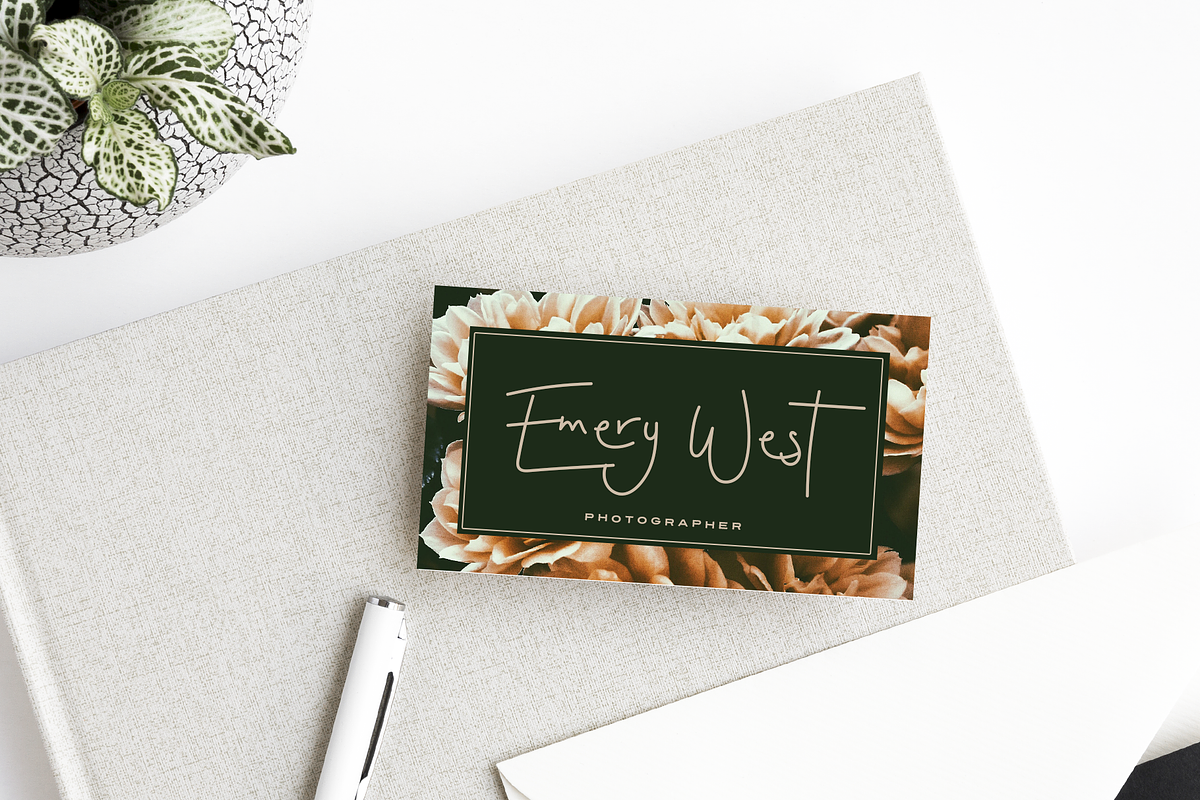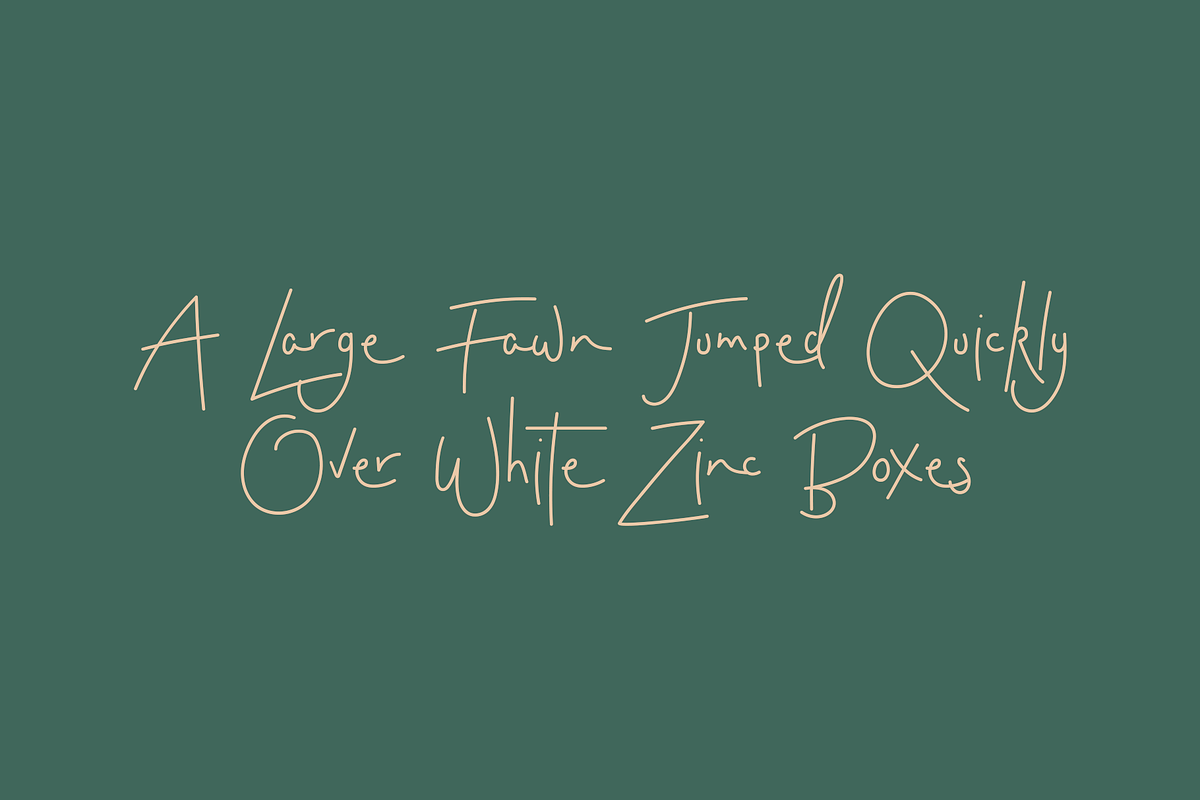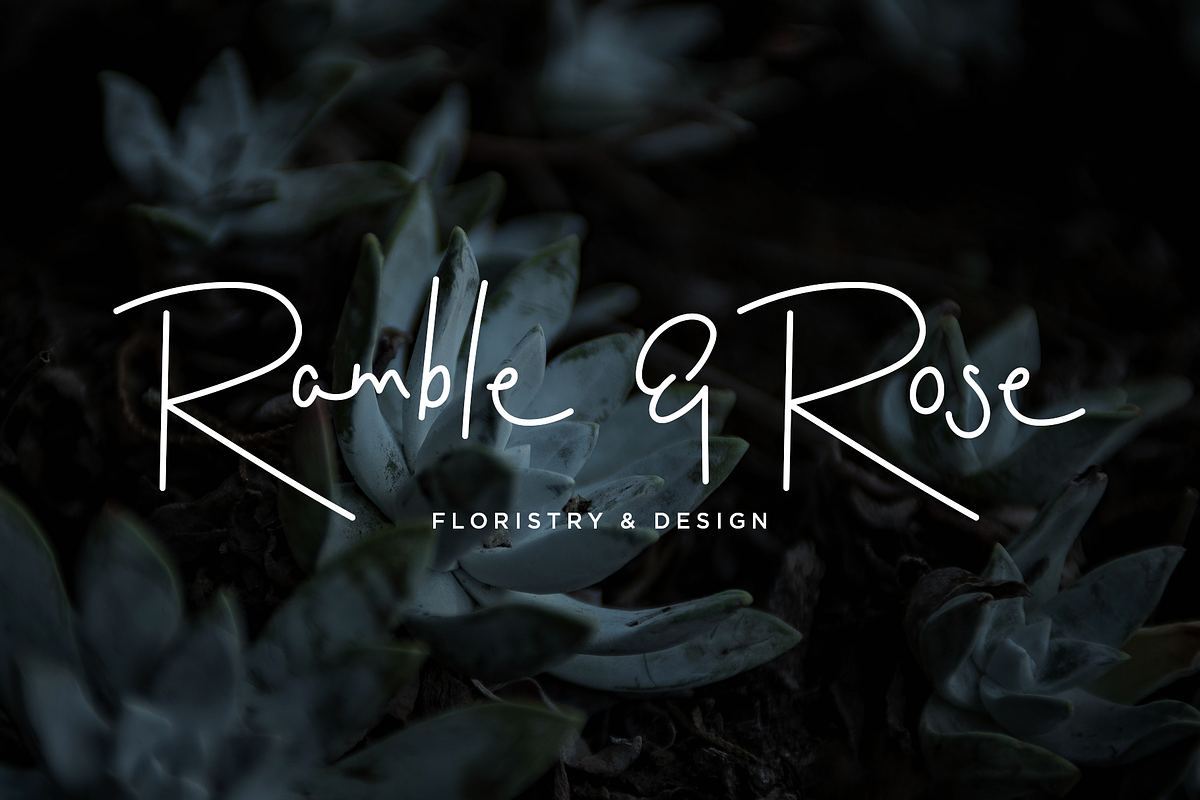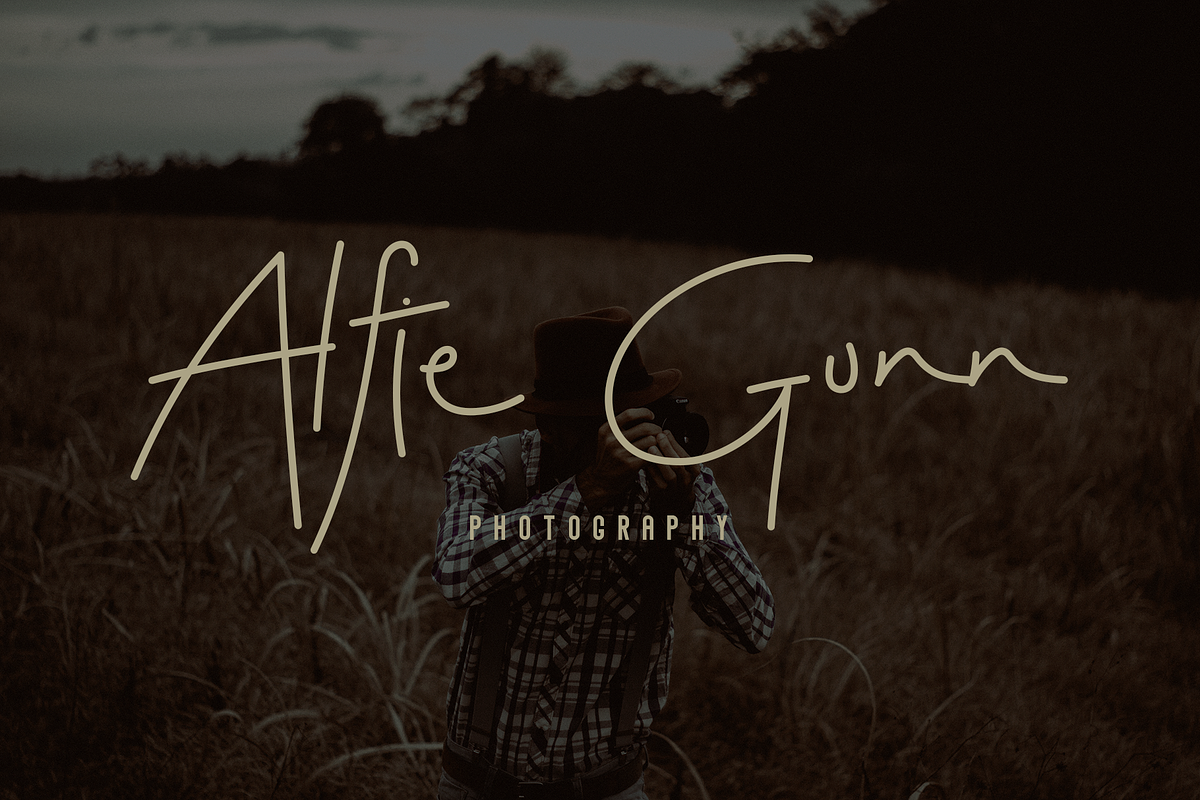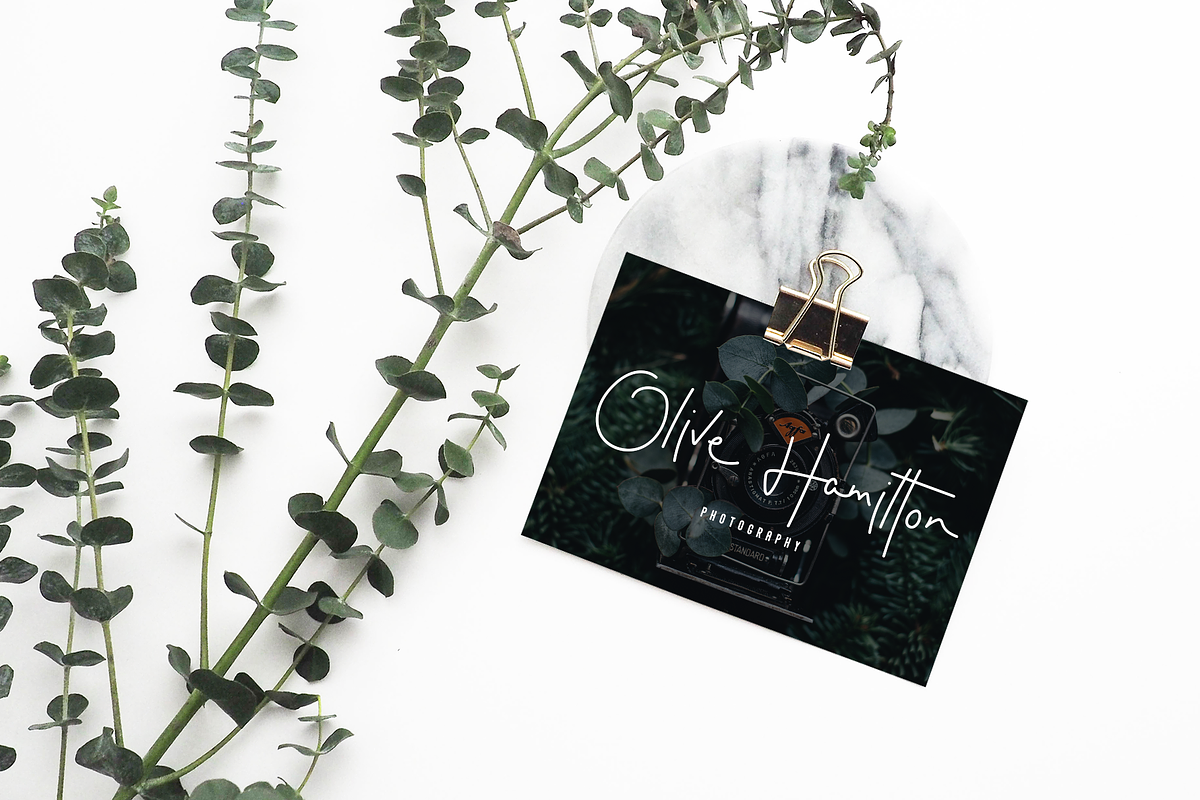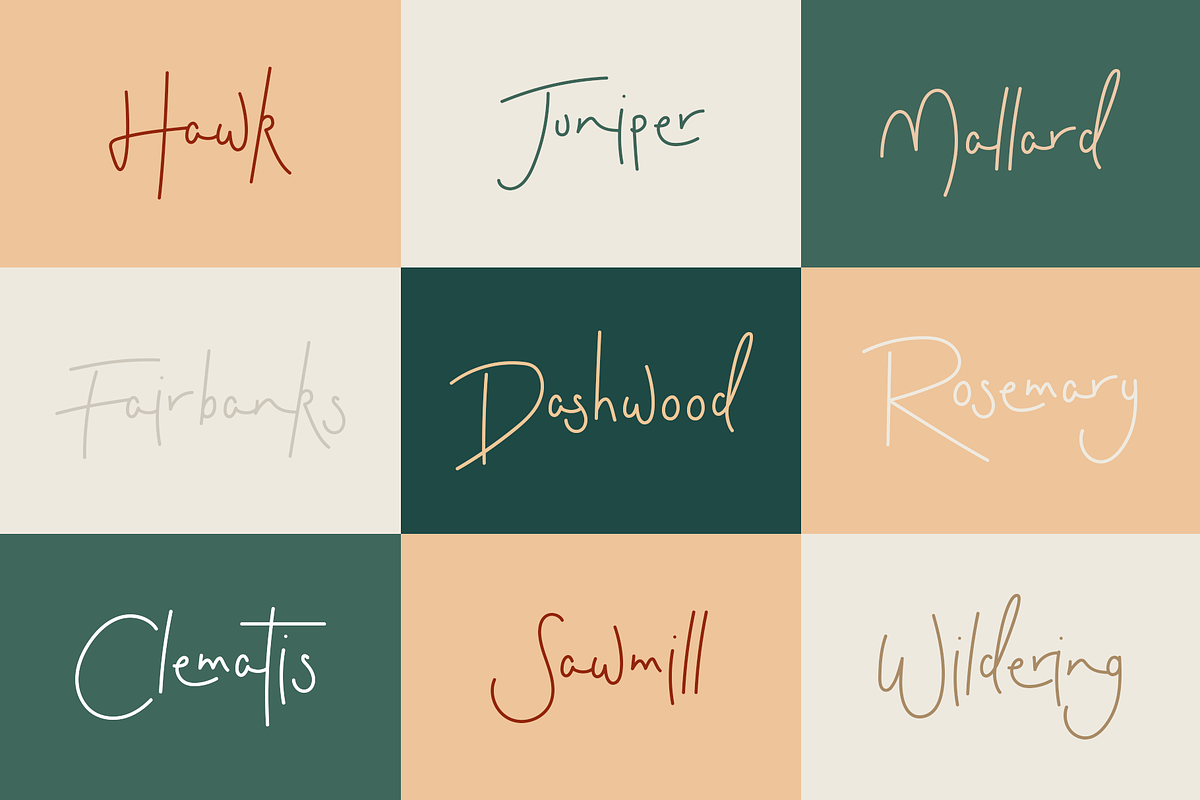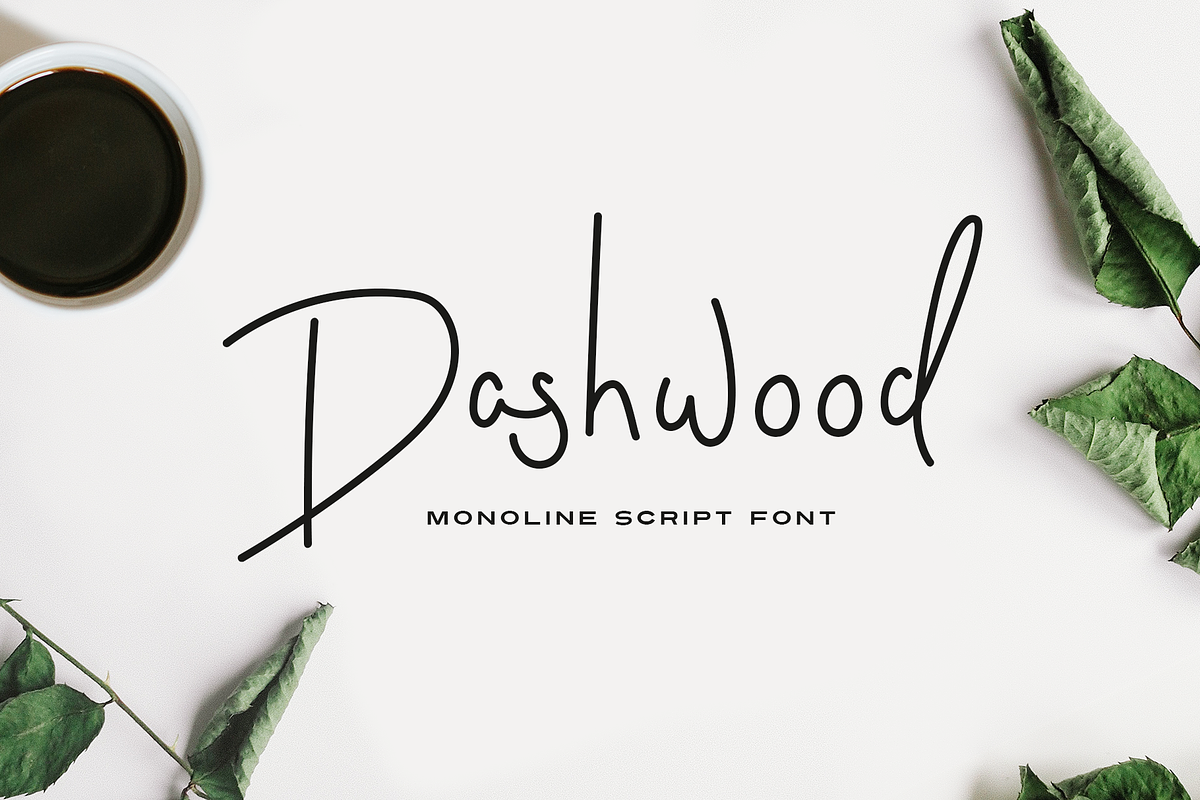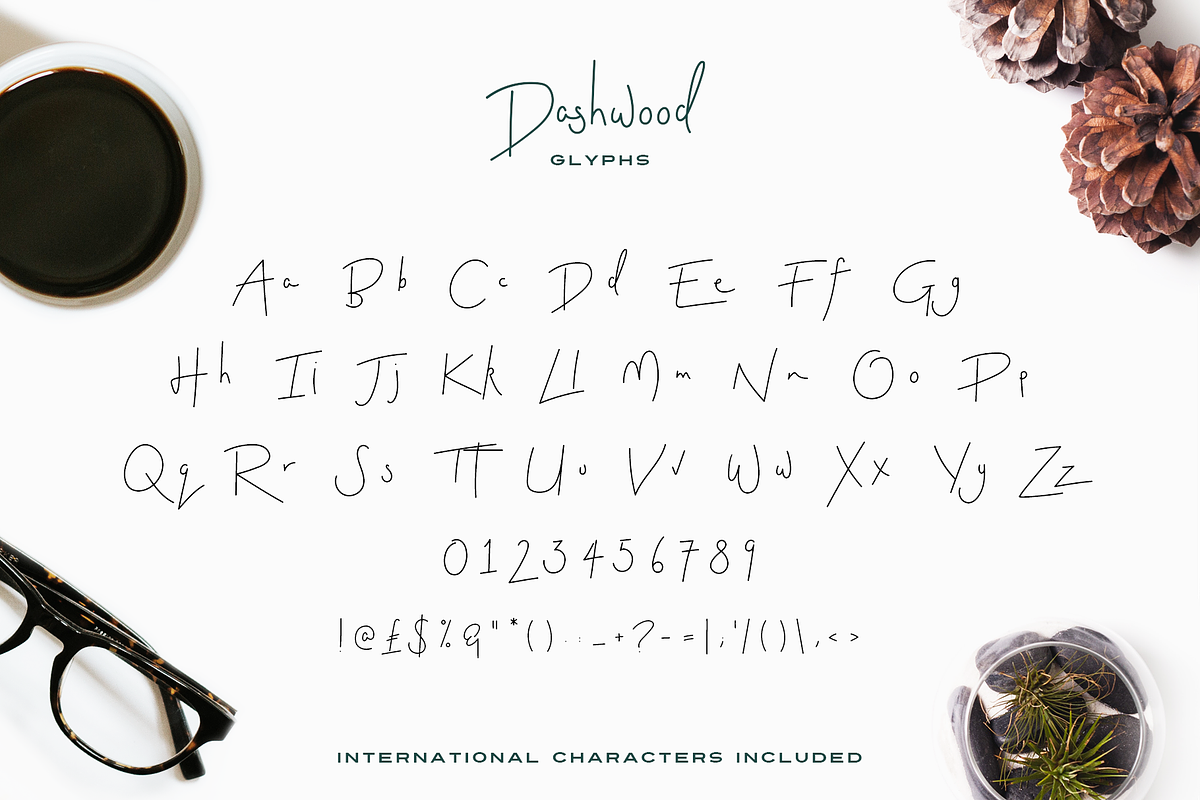
Dashwood Font
Dashwood is a monoline script font drawn by hand. With a natural, relaxed flow Dashwood is great for personal branding projects, creating signatures and watermarks. Dashwood sits nicely alongside other fonts to create branding, handwritten quotes, wedding invites and more.
Dashwood Font by Design Surplus fits naturally into Branding, posters, packaging, typography.